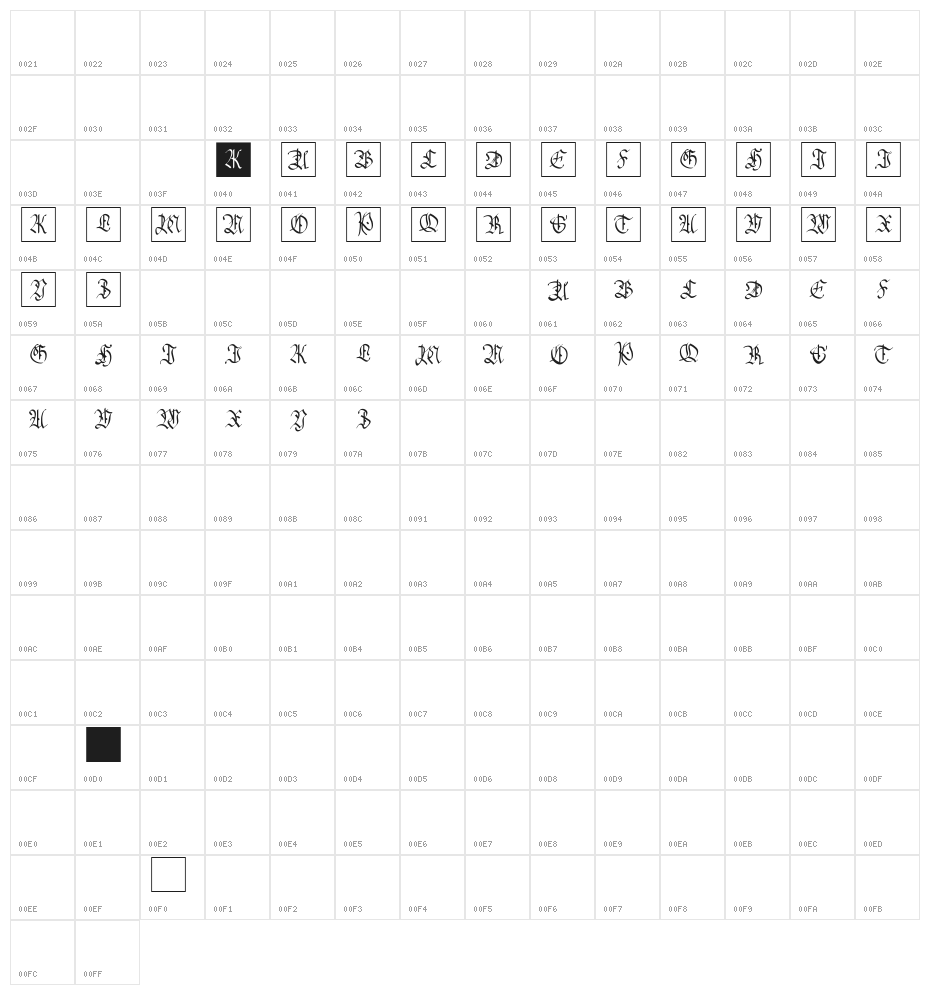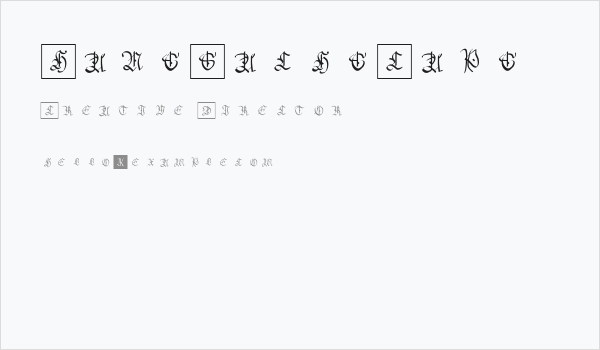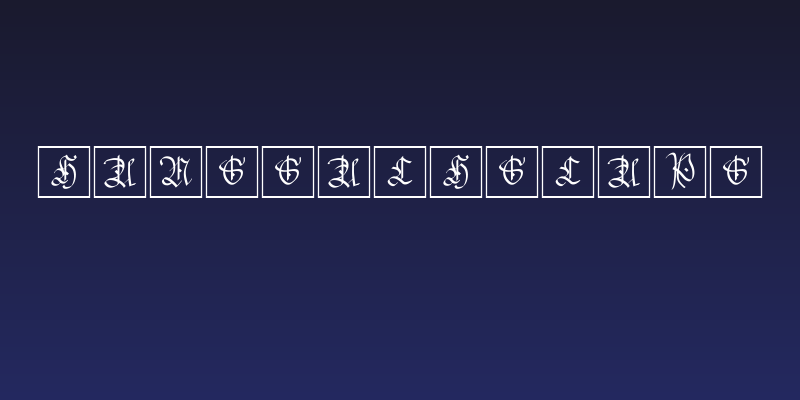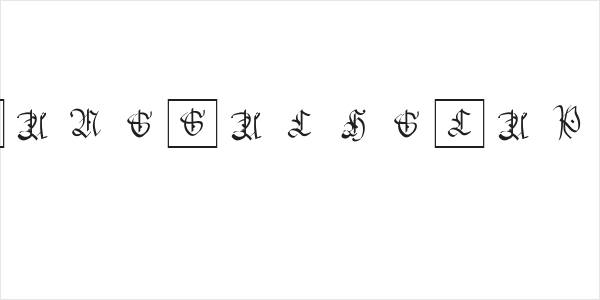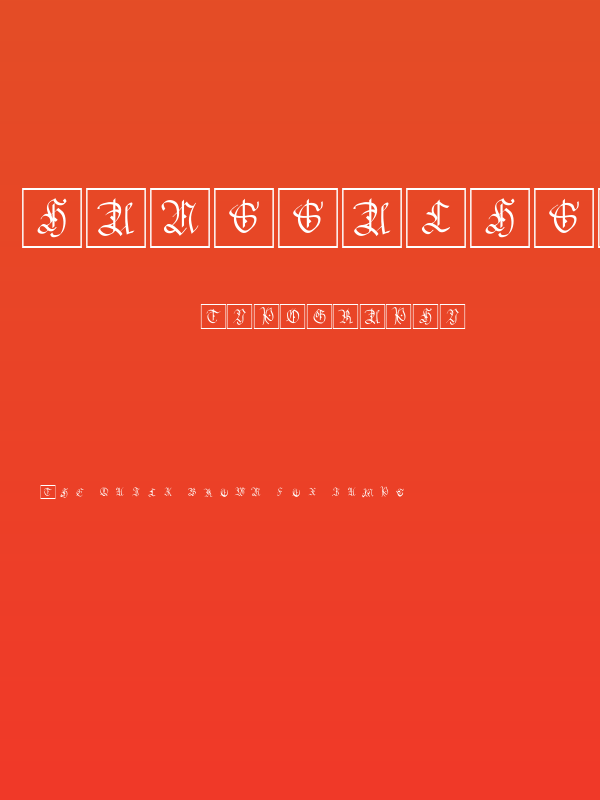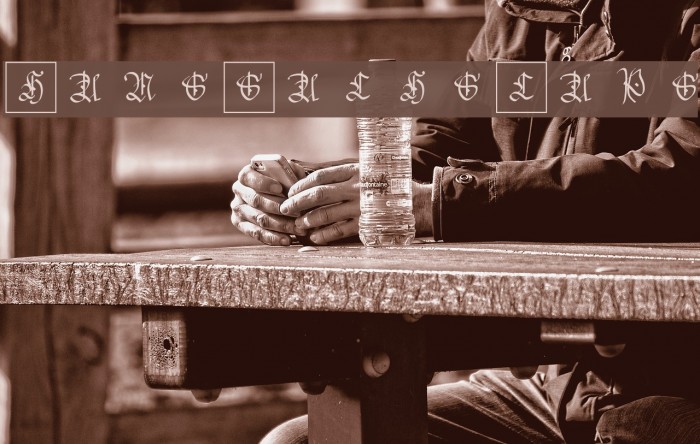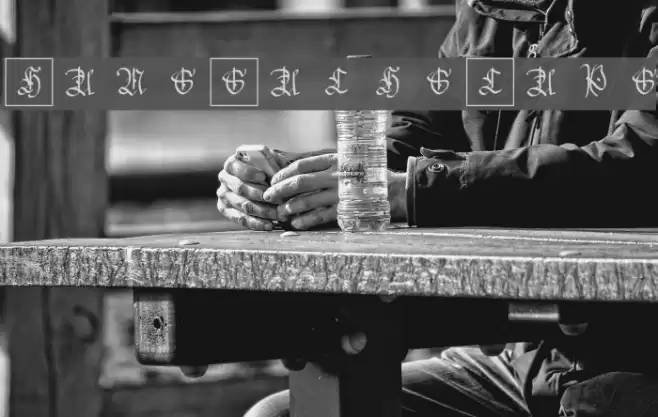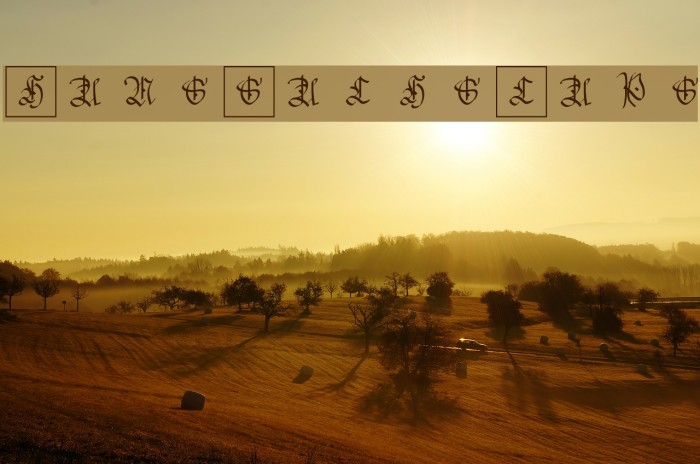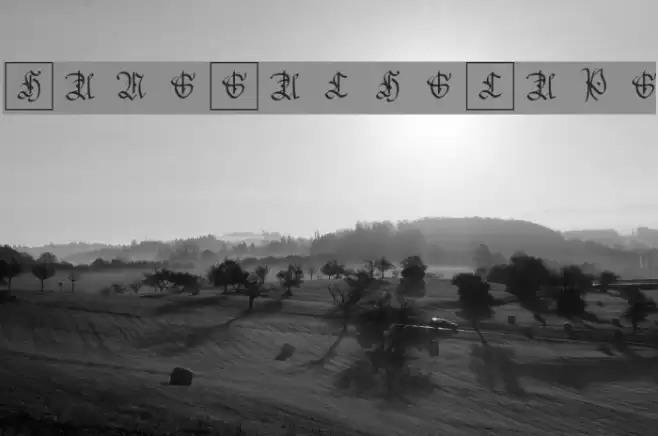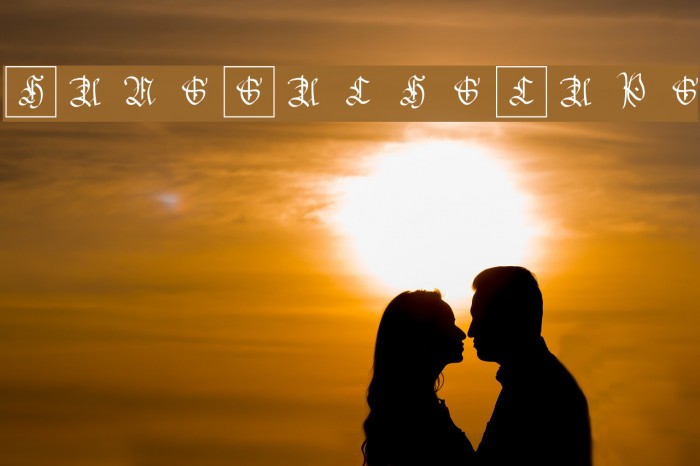
HansSachsCaps Font
HansSachsCaps Description
This font features a classic blackletter style, characterized by its intricate and ornate letterforms. Each character is enclosed within a square, adding a unique boxed presentation that enhances its decorative appeal. The strokes are bold and angular, with sharp serifs and elaborate curves that give it a historical and formal appearance. The uppercase letters are particularly striking, with a strong presence that commands attention. This font is reminiscent of traditional Gothic scripts, often used in medieval manuscripts and historical documents.